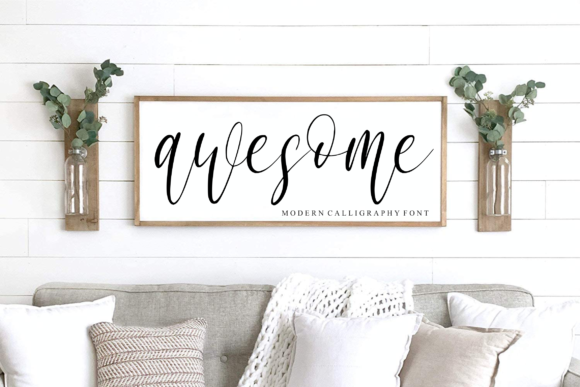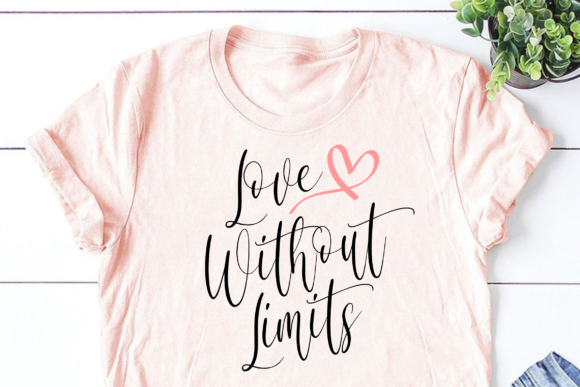
Haventica Font
db-ku.com - Script & Handwritten -- Haventica is a Modern Calligraphy Font perfect for product packaging, branding projects, magazines, social media, weddings, or just used to express words above the background.